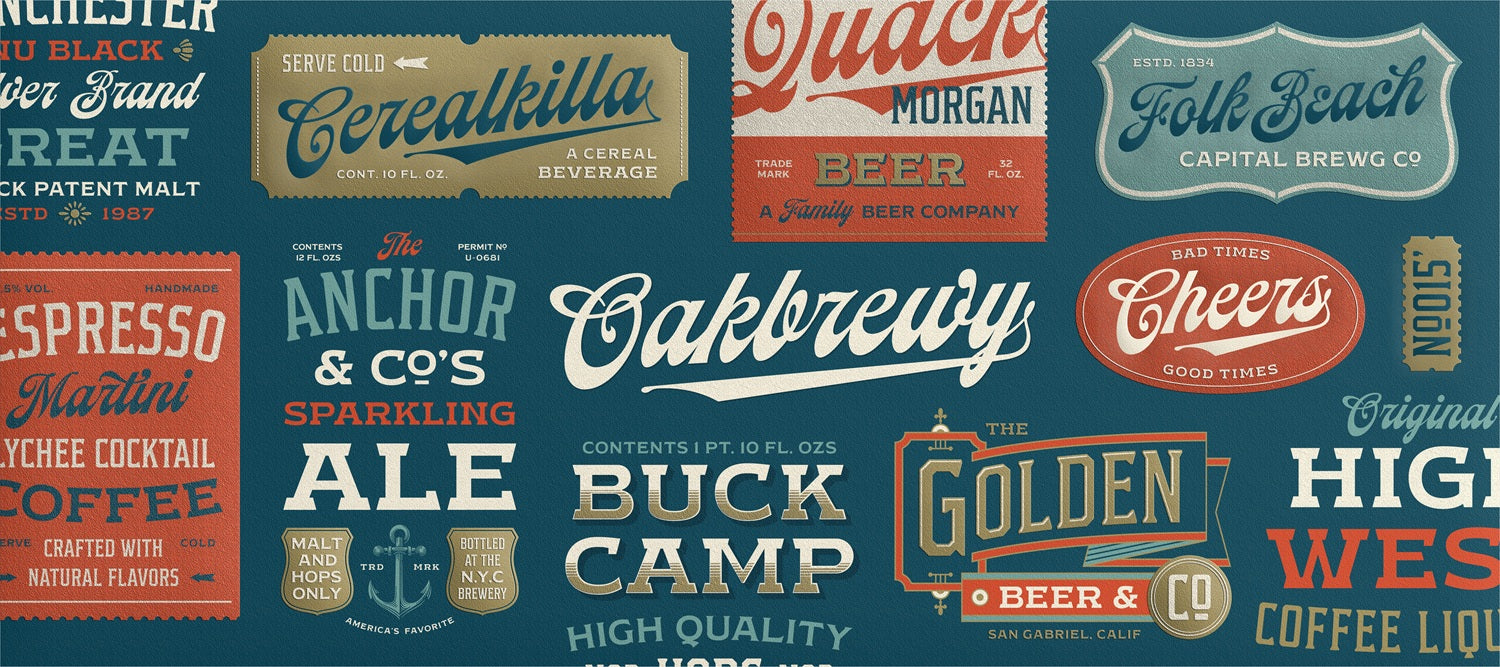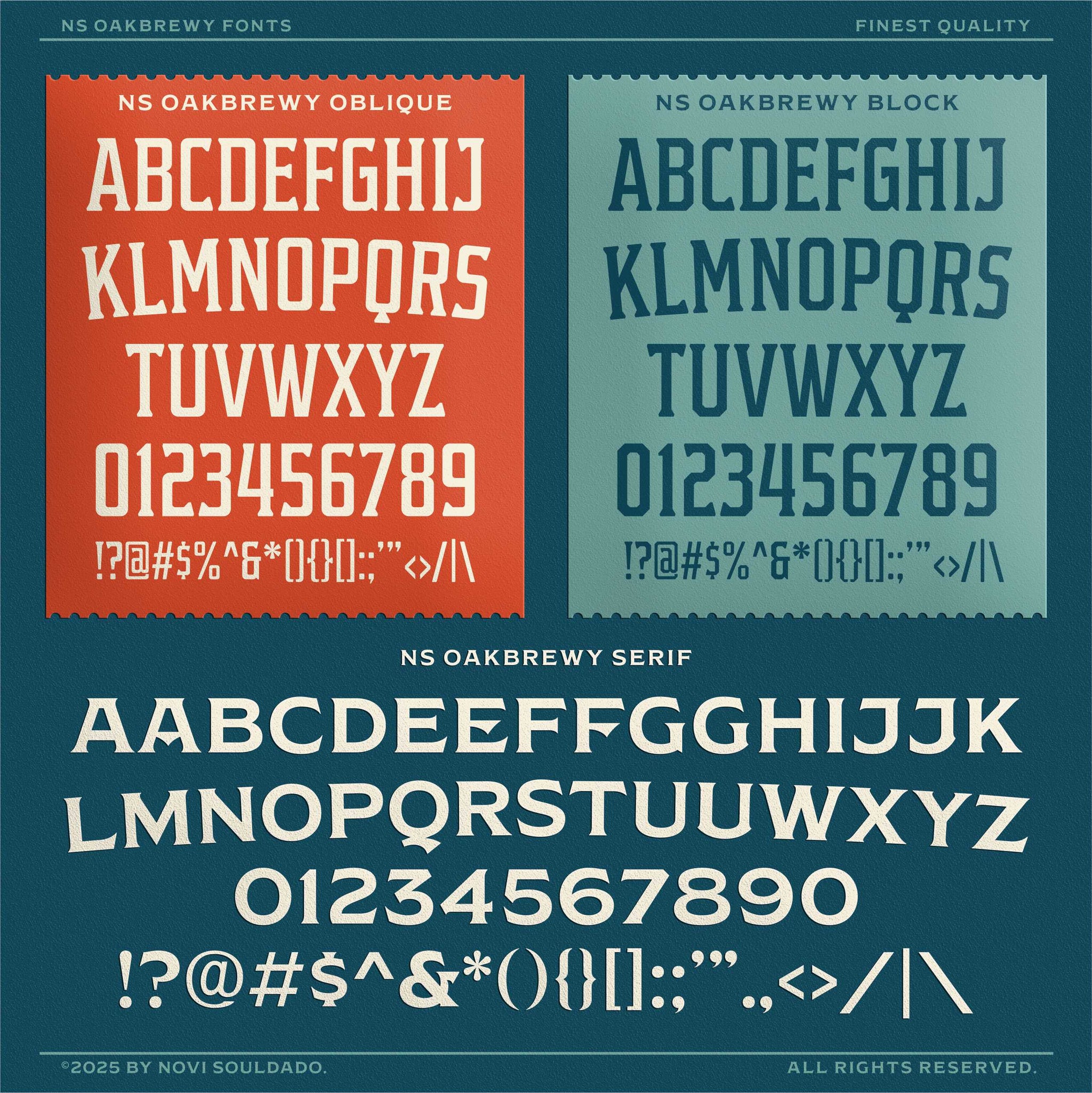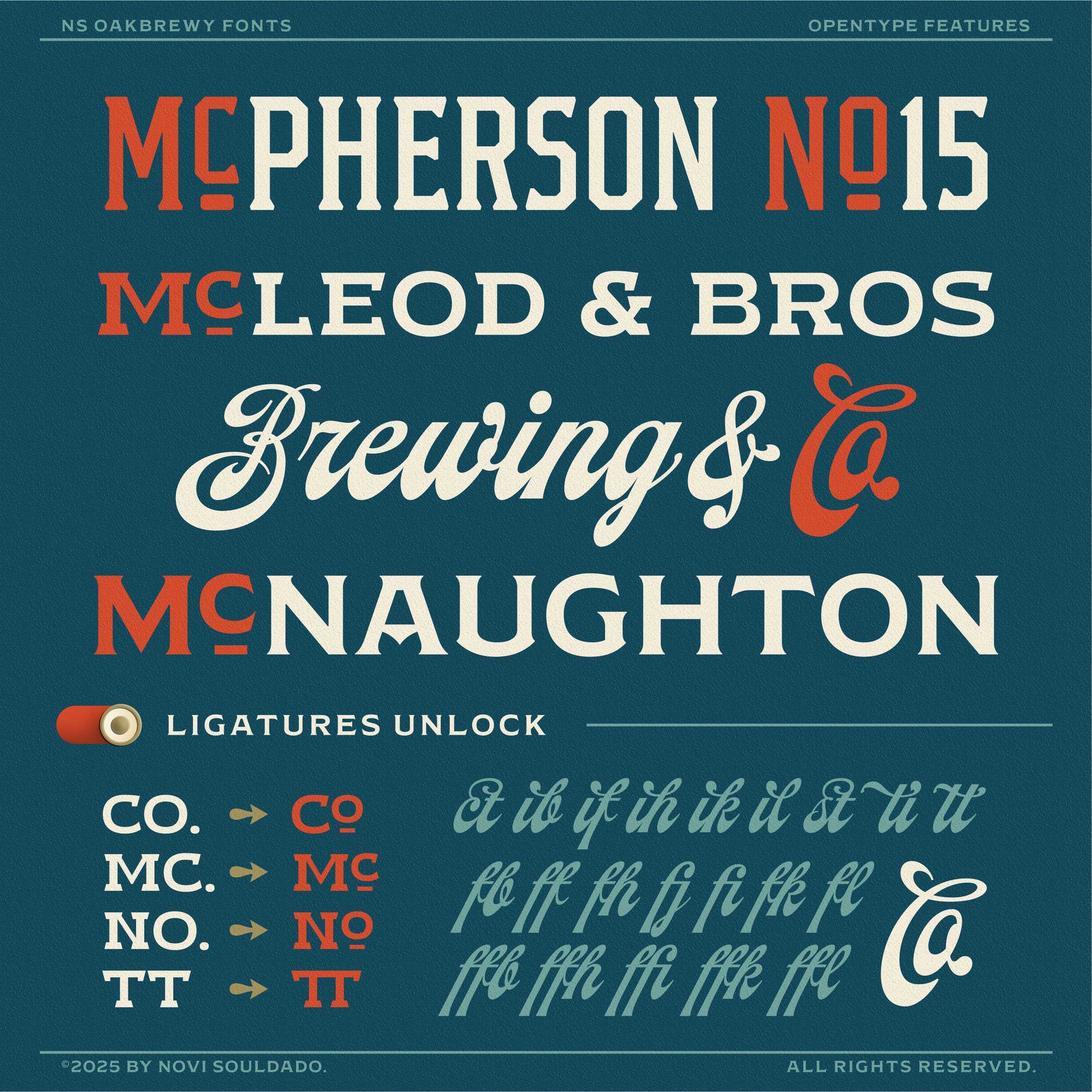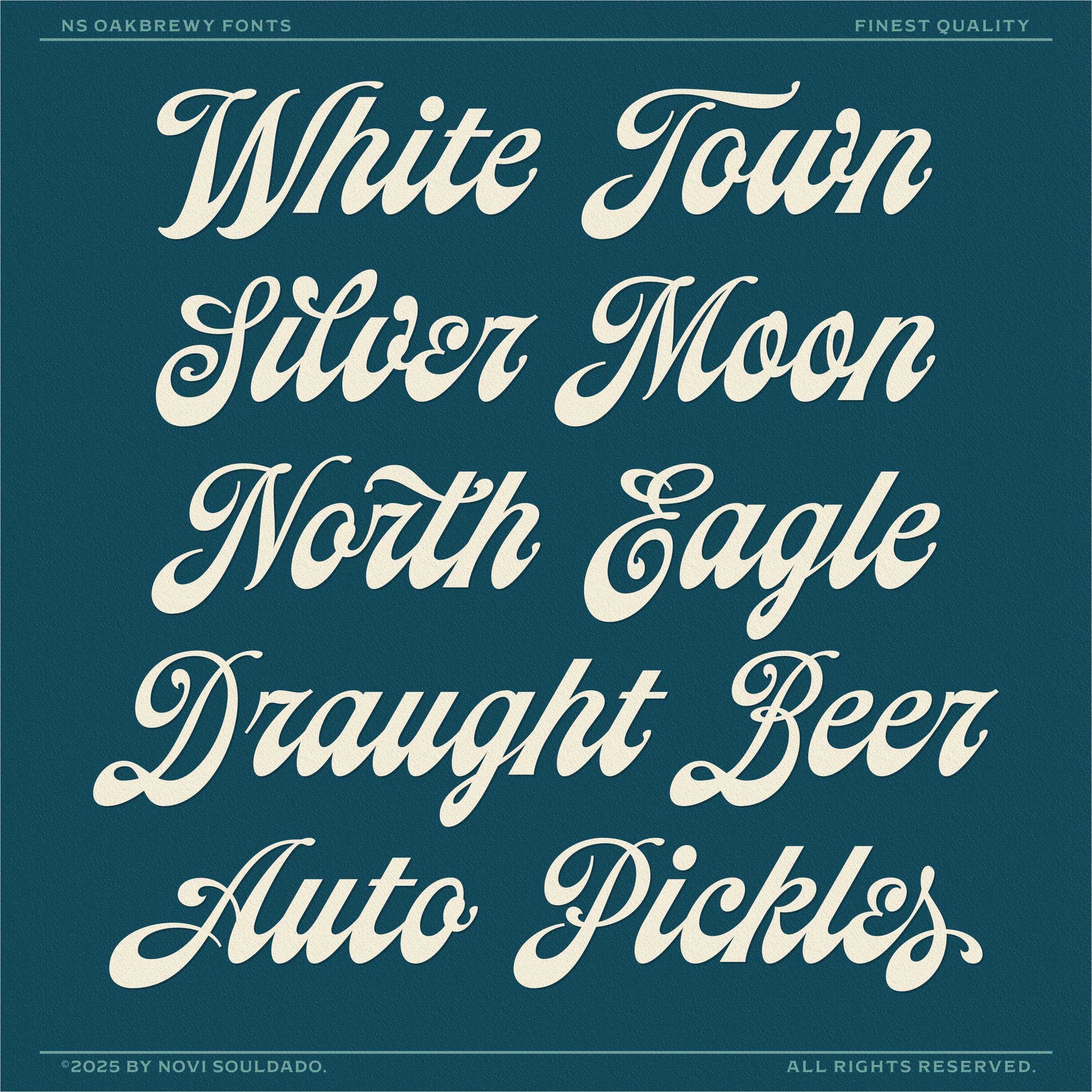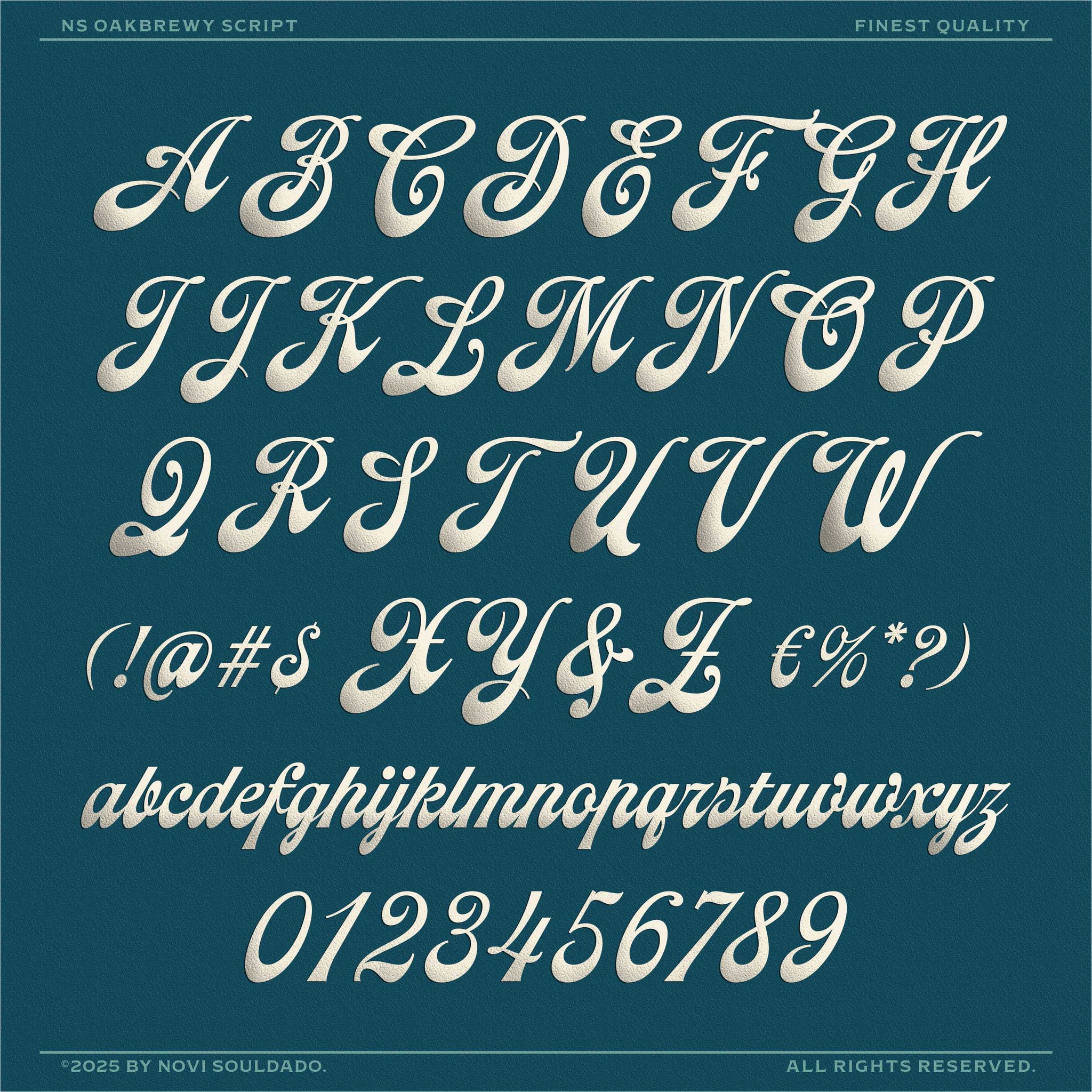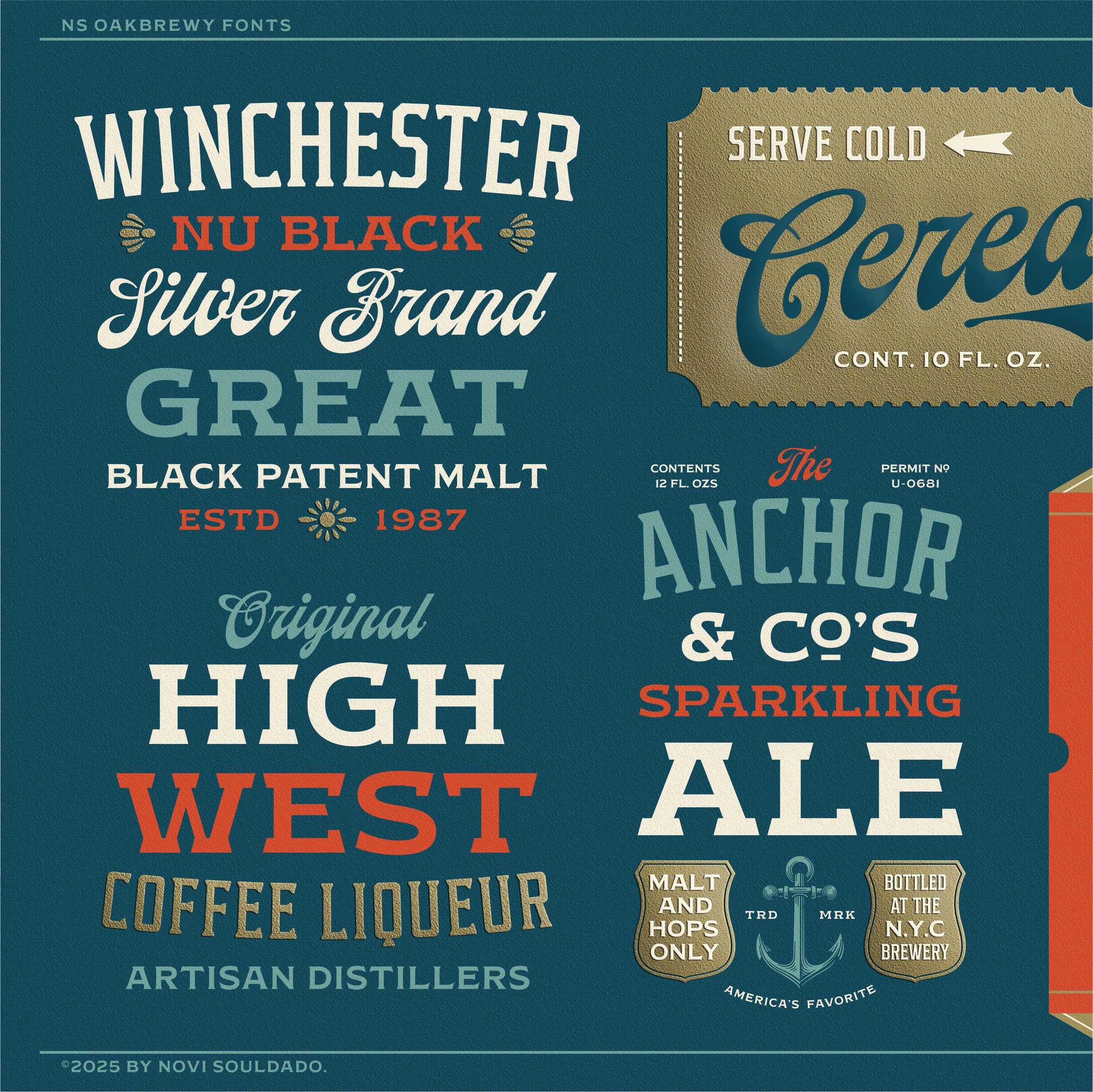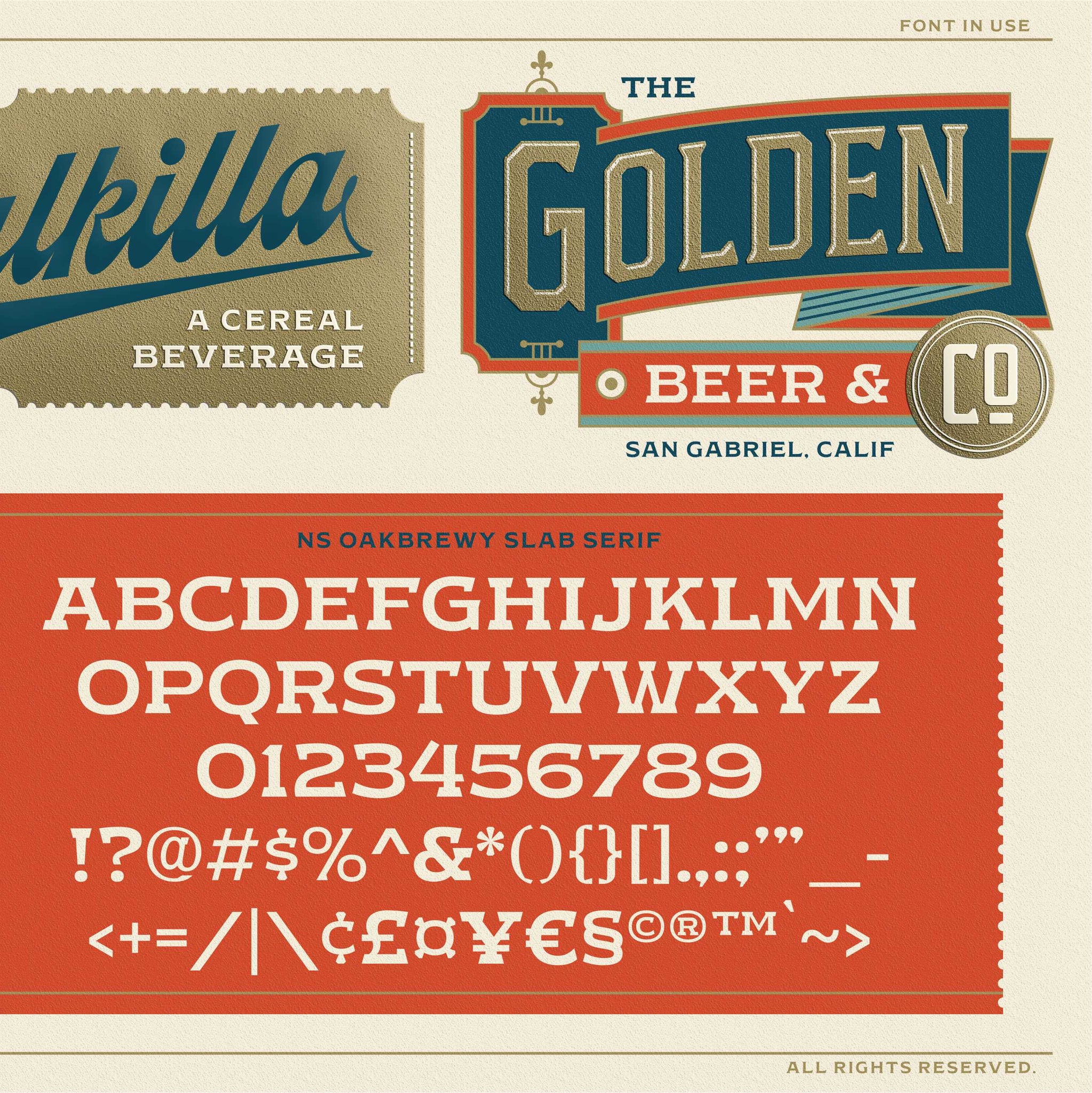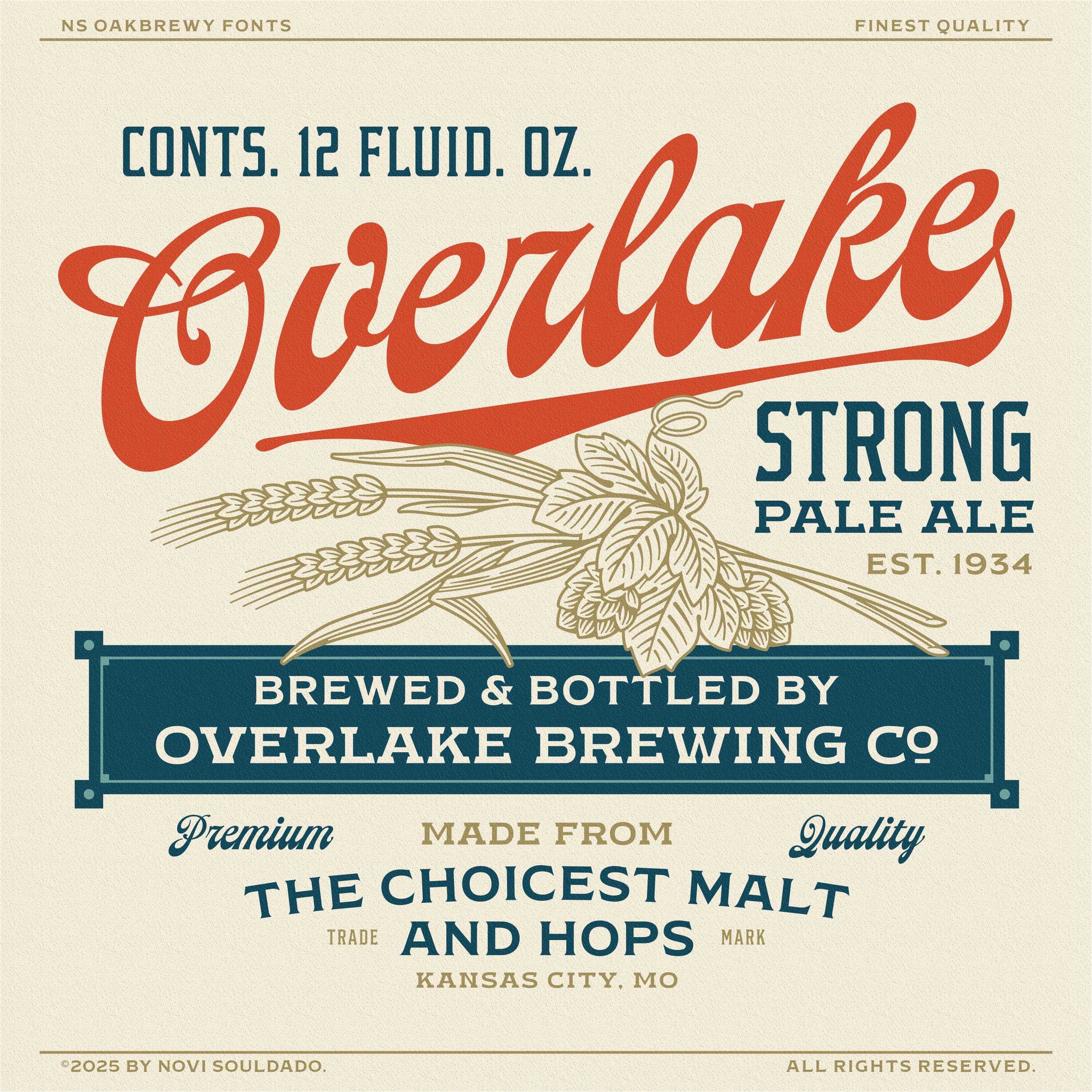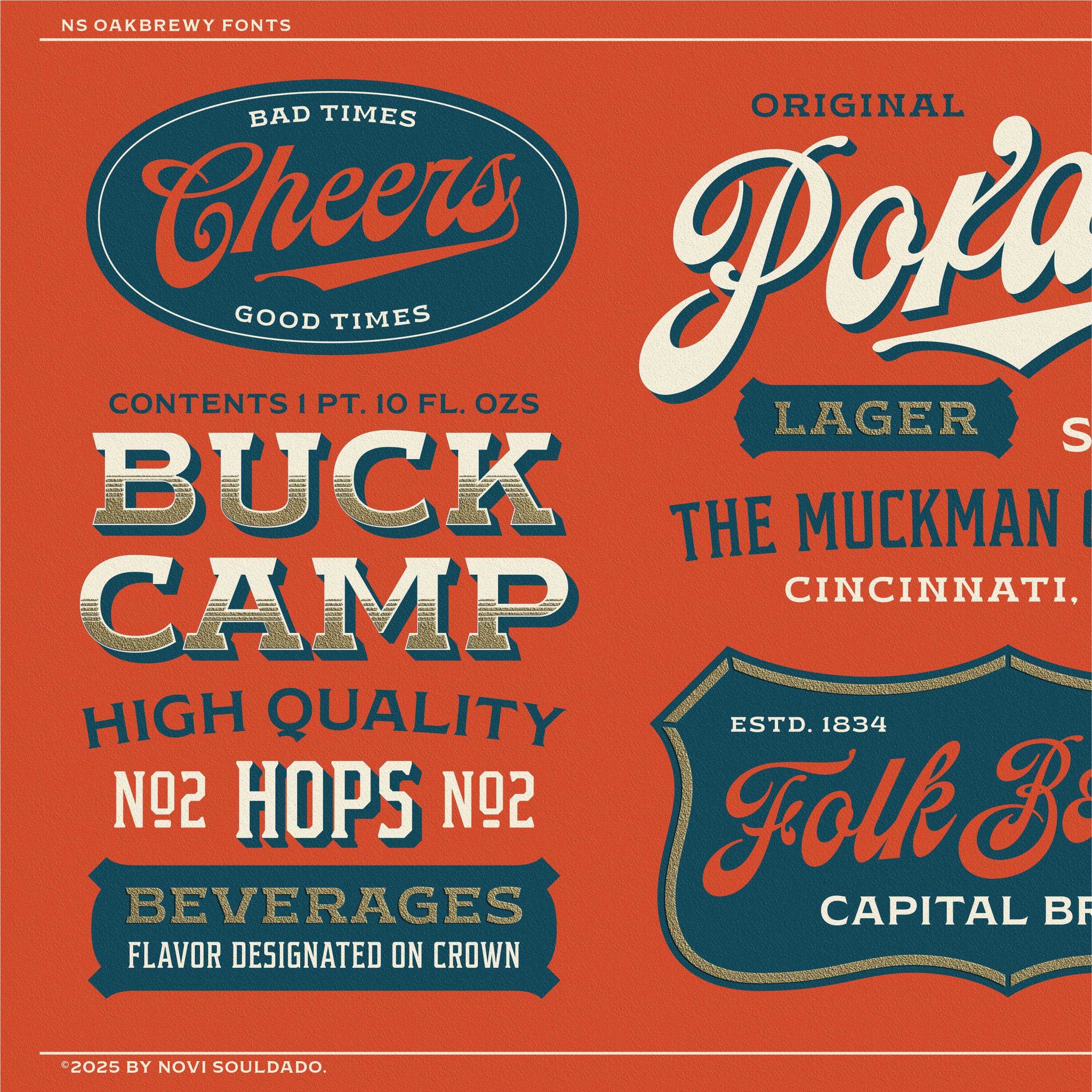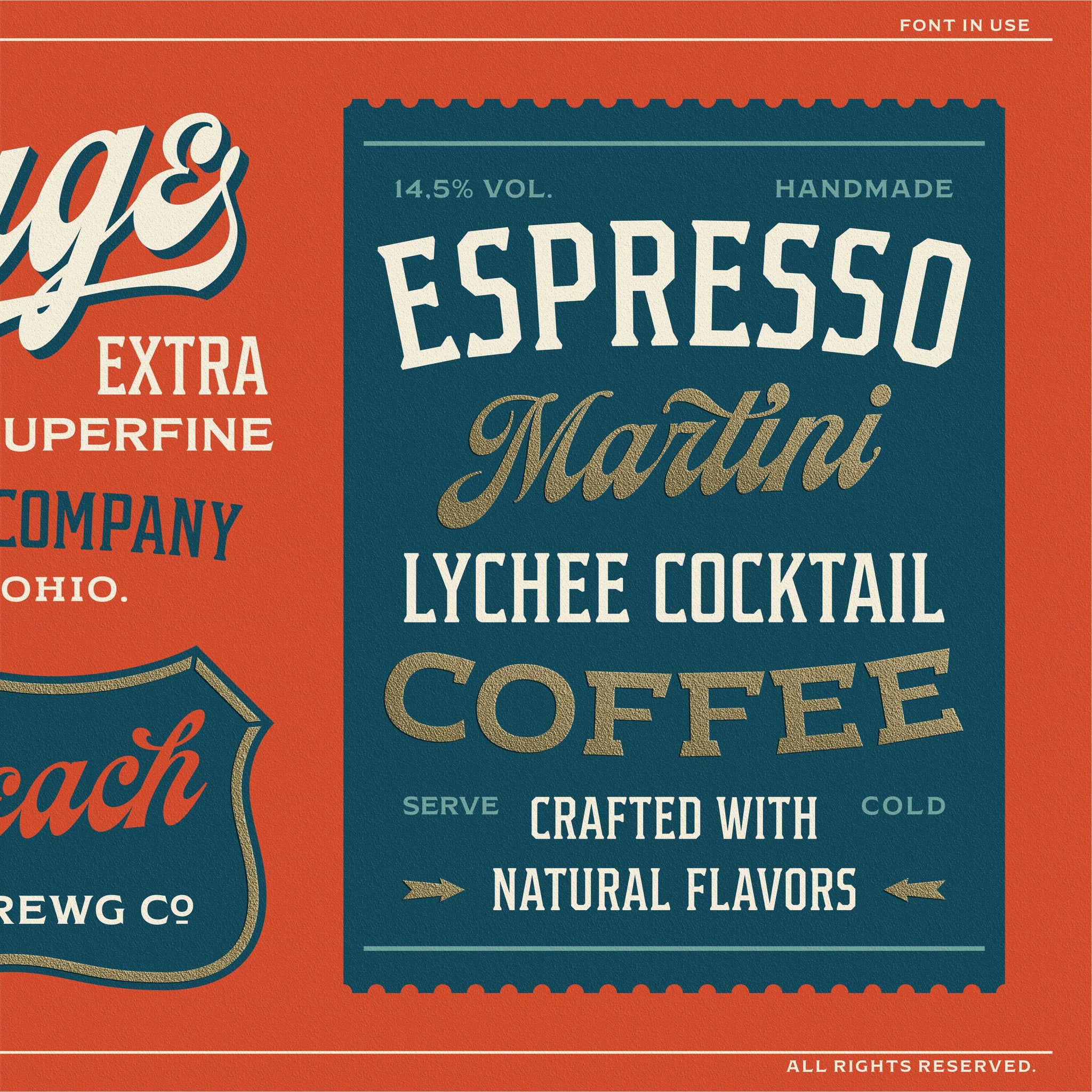
NS Oakbrewy
NS Oakbrewy takes cues from vintage and contemporary explorations of beverage, cocktail, beer, and liquor labels—blending classic charm with a modern edge. Featuring four distinctive font pairings, it’s a versatile type system built to elevate any visual project, from labels and lettermarks to logos, headlines, and bold branding statements.